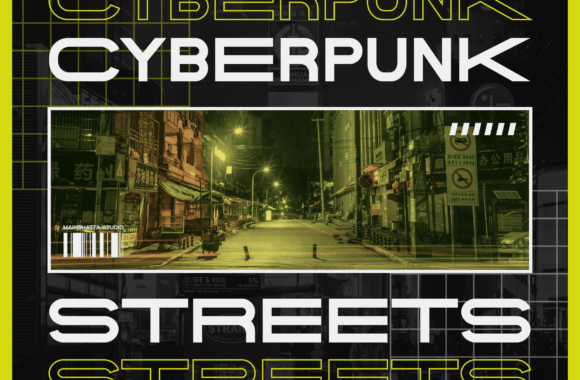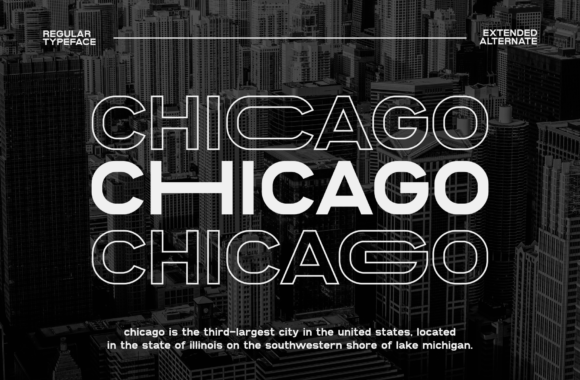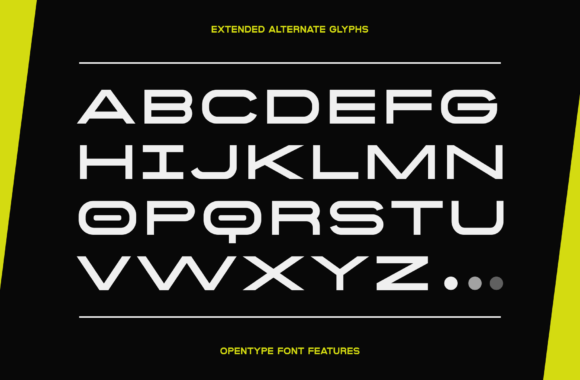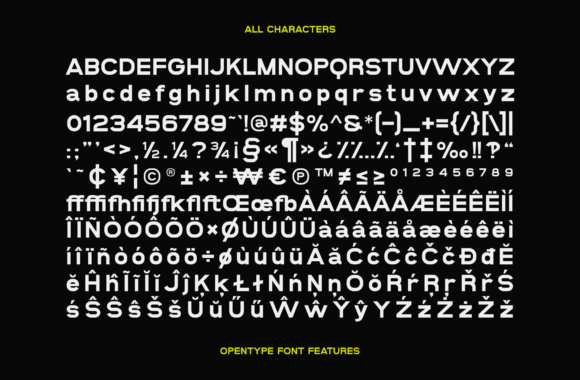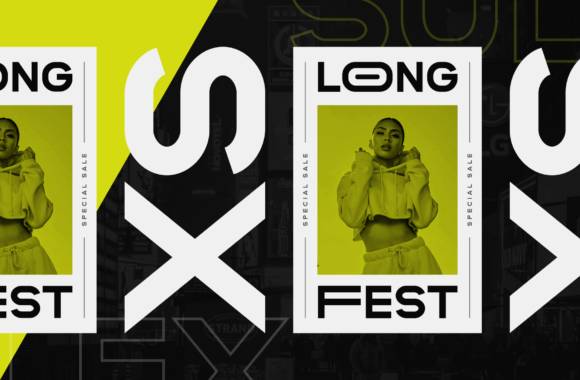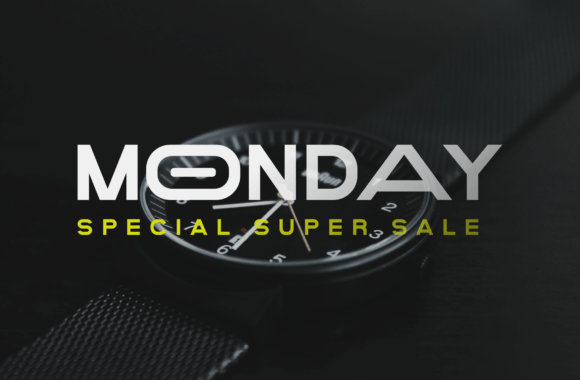
Introduction to Sans Sulex Font
Introducing our new product **Sans Sulex** – Modern Sans Serif This Font is a very flexible choice and can be used in a variety of design contexts.
Its ability to provide a clean, professional, contemporary look and its simplicity and visual appeal make this font good for use in the world of graphic design and modern typography .